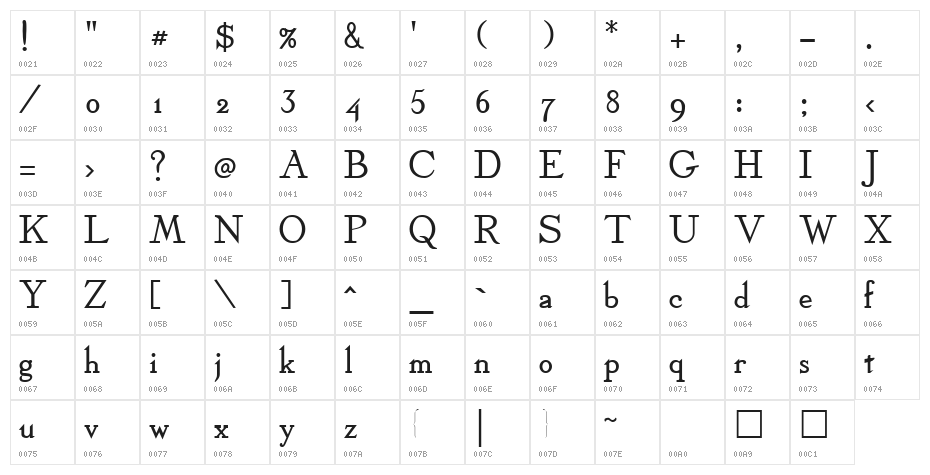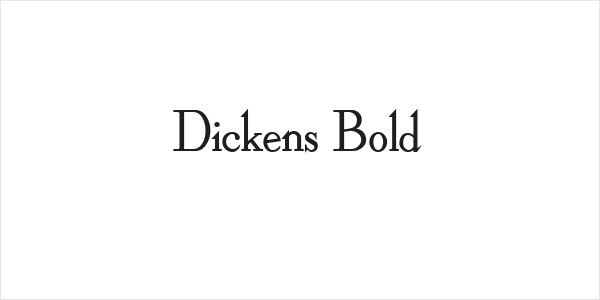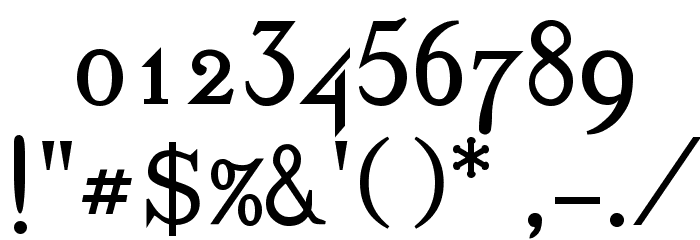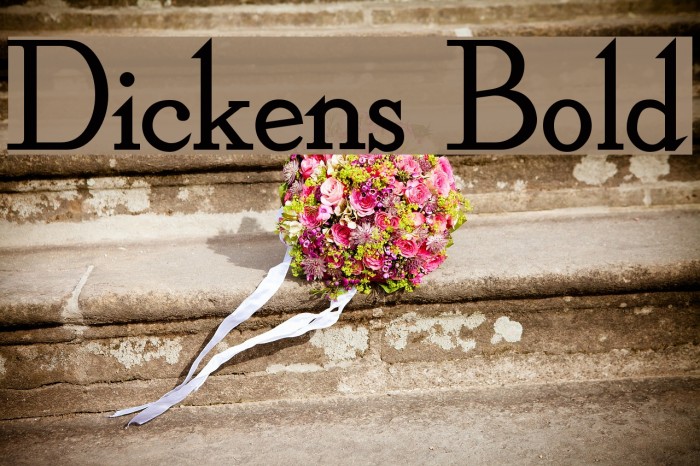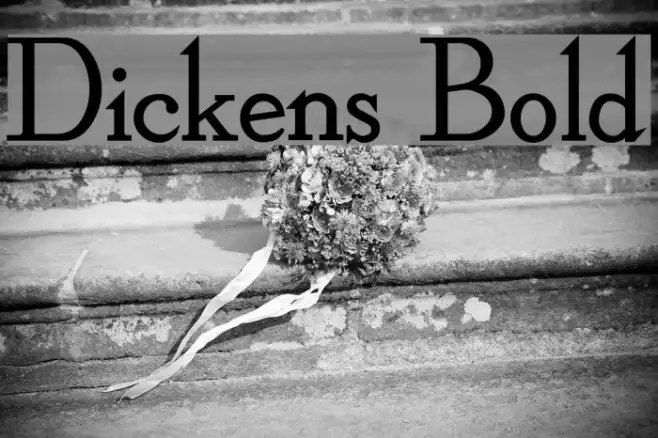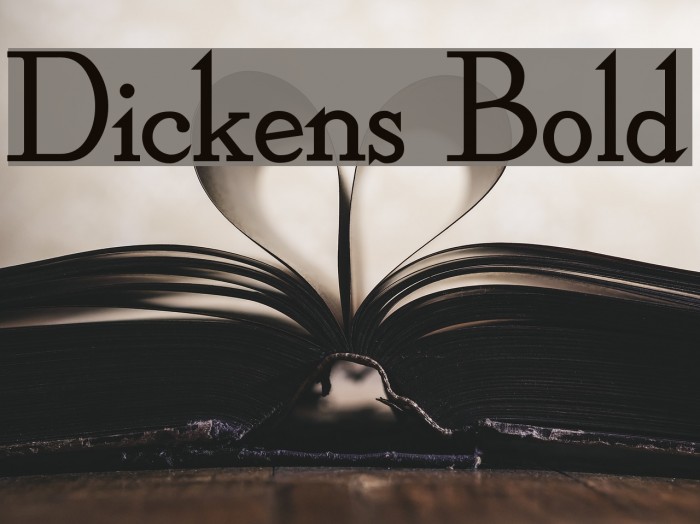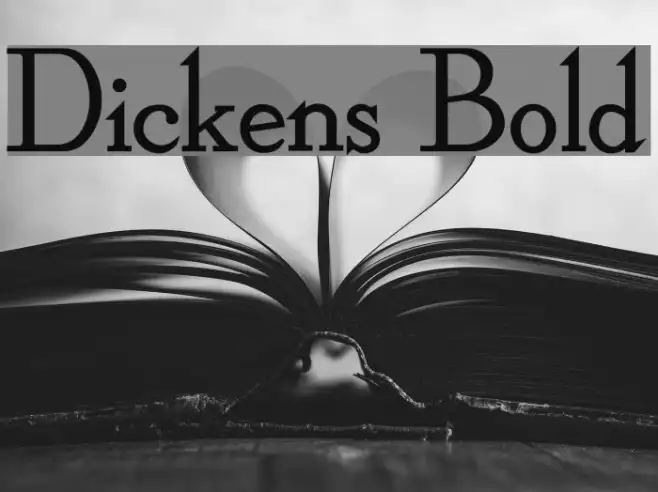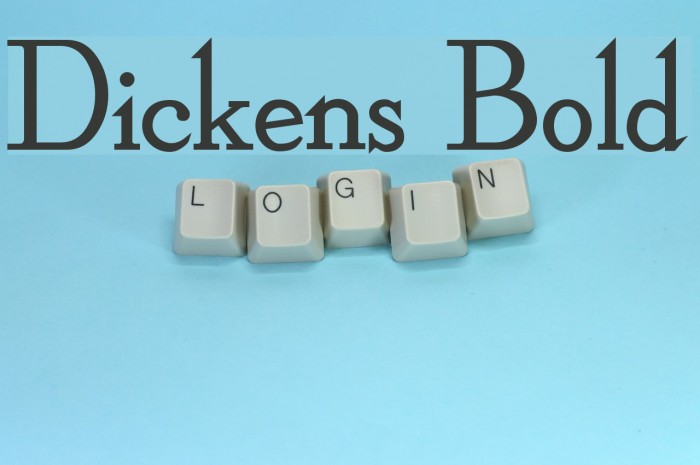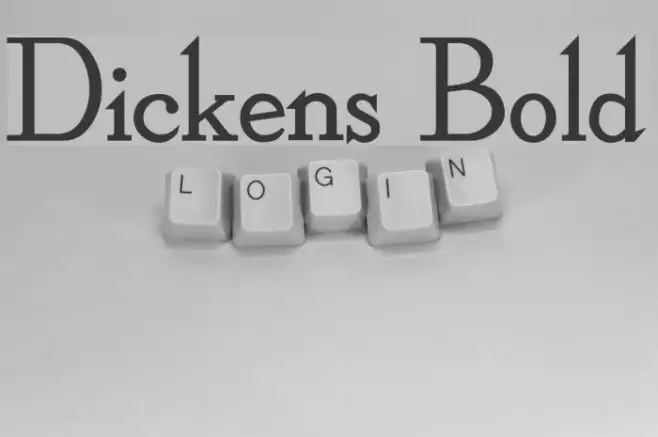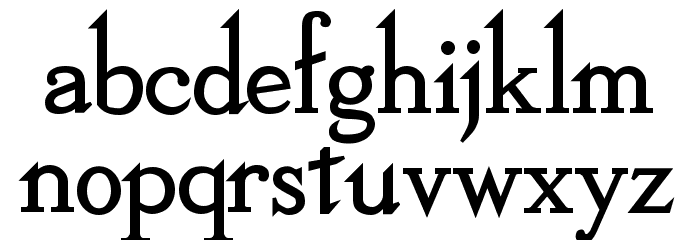
Dickens Bold Font
Dickens Bold Description
This font exhibits a classic serif style with a bold weight, characterized by its strong, elegant strokes and high contrast between thick and thin lines. The uppercase letters are tall and commanding, while the lowercase letters maintain a consistent and harmonious flow. The numerals are distinct and clear, making them easily legible. Special characters are designed with the same attention to detail, ensuring they complement the overall aesthetic. The font's traditional yet bold appearance makes it suitable for projects that require a touch of sophistication and authority.
| Use Case | Headlines, Logos, Editorial design |
| Proposed Projects | Ideal for book covers, editorial design, branding, and formal invitations. |